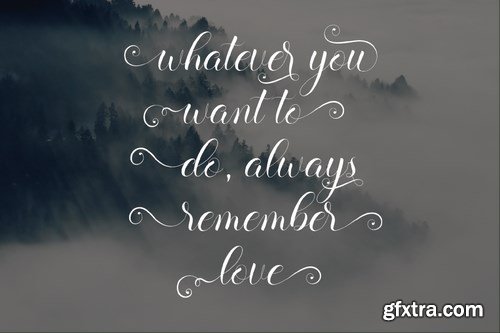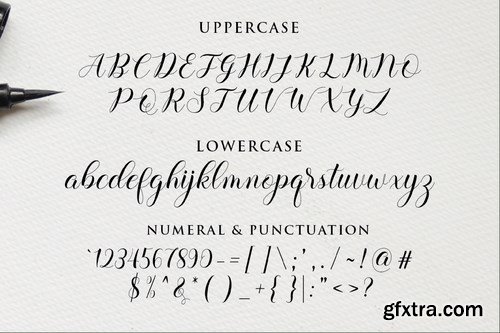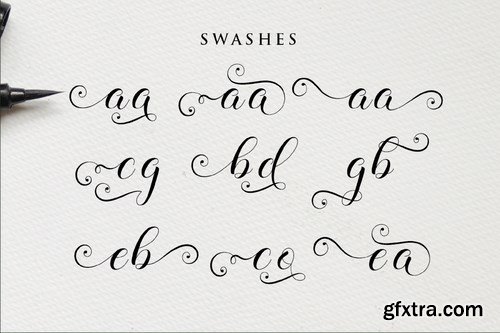
Introducing Ediana script, a stylish Font Style. This beautiful script font offers your personal touch to your latest art project with an elegant, classy and modern look.
The Ediana Script offers gorgeous typographic perfect for many different projects such as logos & branding, invitations, stationery, wedding designs, social media posts, advertisements, product packaging, product designs, labels, photography, watermarks, special events or anything that needs handwriting taste. What's Included: Ediana OTF Ediana TTF Numeral and punctuation Stylistic Alternates & Ligatures Swashes International Language Works on PC & Mac Simple installations